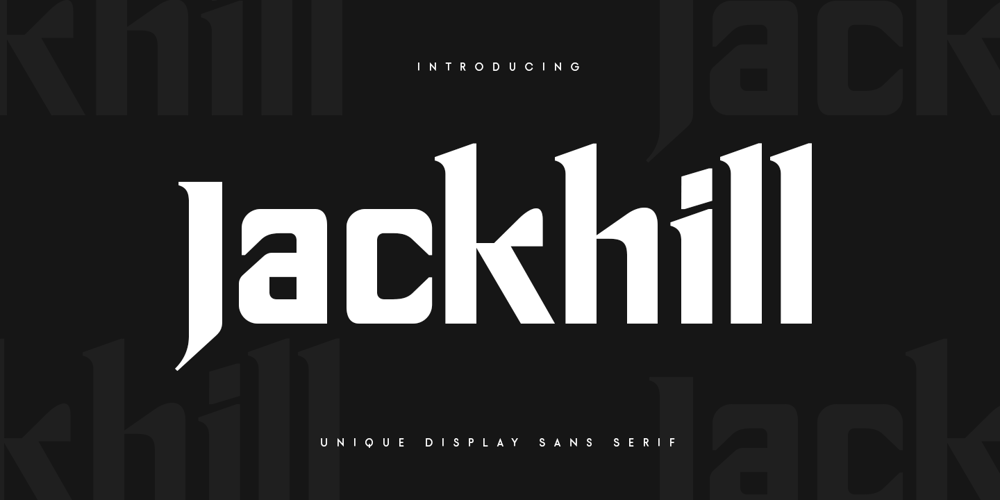
Jackhill
Jackhill font
Jackhill Font Family was designed by Zamroni Hamzah and published by Sensatype Studio. Jackhill contains 1 styles and family package options. Jackhill is Modern Unique Display font with stylistic and unique style ready for any project you want, font that you can combine to get any variations and unique shapes easily just in seconds with choose alternates of them. It is a display font with moderate contrast that perfect for branding projects, logo, urban designs, social media posts, advertisements, product packaging, product designs, label, photography, watermark, and any projects, it makes with a high level of legibility.What’s Included: Character set A-Z Uppercase & Lowercase Numerals & Punctuation Accented Characters (West Europe) Stylistic alternates Works on PC & Mac Recommended using Adobe Illustrator or Adobe Photoshop. Wish you enjoy our font. 🙂